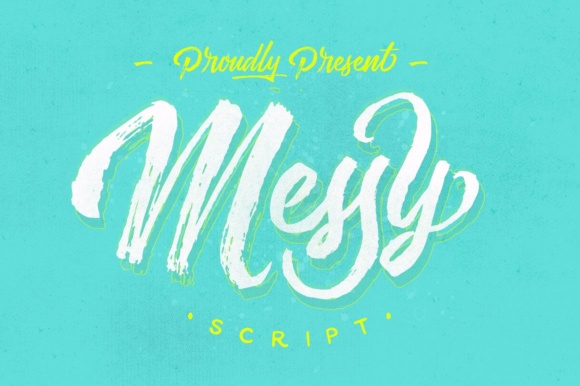
Introducing Messy Script Font - a captivating display typeface that will unleash your creativity!
Step into a world of boundless expression, where your designs take on a mesmerizing life of their own. Messy Script Font is a hand-painted masterpiece crafted by the skilled artisans at Maghrib. Each letter dances across the page with an untamed grace, exuding an authentic and deeply personal touch.
With Messy Script Font, you'll discover a symphony of styles that will ignite your imagination. From elegant invitations to eye-catching branding, this font transforms ordinary projects into extraordinary works of art. Its versatility knows no bounds, lending itself seamlessly to logos, posters, social media graphics, and a myriad of other creative endeavors.
Indulge in the freedom to express yourself with a font that perfectly captures your unique vision. Messy Script Font is not just a collection of characters; it's a gateway to a world of endless possibilities. Let your creativity run wild as you craft designs that resonate deeply with your audience.
Don't settle for ordinary fonts that blend into the background. Embrace the power of Messy Script Font and let your designs stand out from the crowd. Whether you're a seasoned designer or just starting your creative journey, this font will empower you to create something truly exceptional.
Dive into the world of Messy Script Font today and unleash the boundless creativity within you. Let your designs shine with a captivating hand-lettered charm that will leave an unforgettable impression.